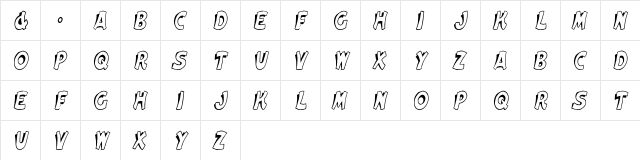
Elwood Cn Italic Italic
Design Context for Elwood Cn Italic Typeface
Elwood Cn Italic echoes the hand-painted signage and woodblock typography of the American frontier, with a warm, rugged personality. Its italic angle brings a sense of urgency and motion to the letterforms.
A natural fit for craft spirits, ranch branding, rodeo events, and Americana-inspired design work.
Font Pairing: Combine Elwood Cn Italic with a simple slab or neutral sans — period-accurate companions reinforce the vintage feel without competing for attention.
Pro Tip: Use Elwood Cn Italic for short, impactful bursts of text — it shines in poster headlines and product names rather than extended copy.